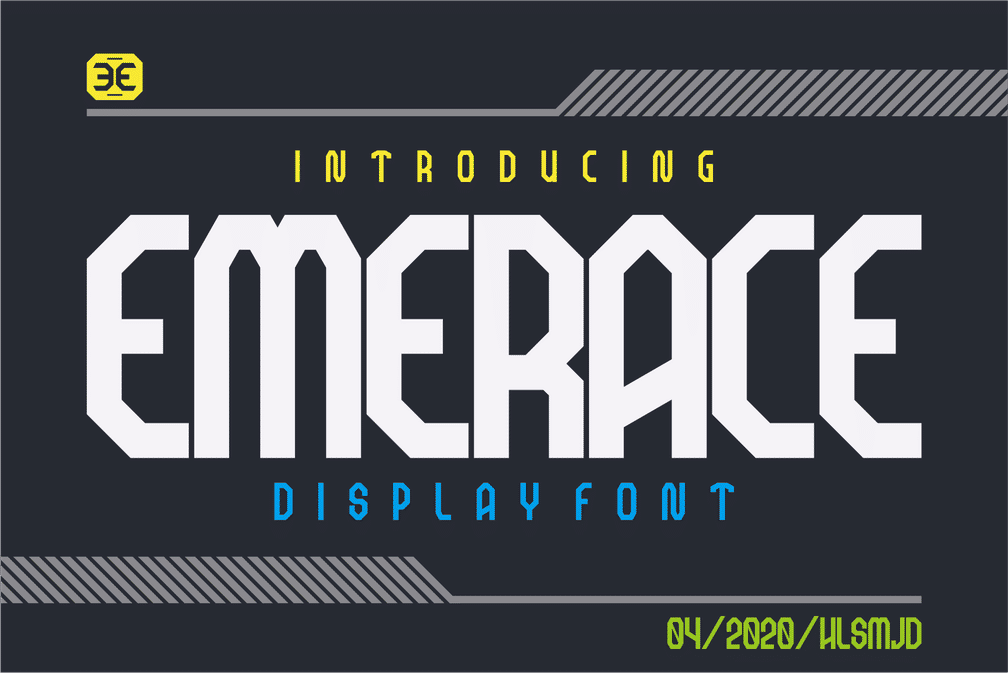
- Emerace Sport
Inspired by modern things related to sports and technology, suitable for designs related to something modern, applied as logos, posters, branding, postings on social media, etc.